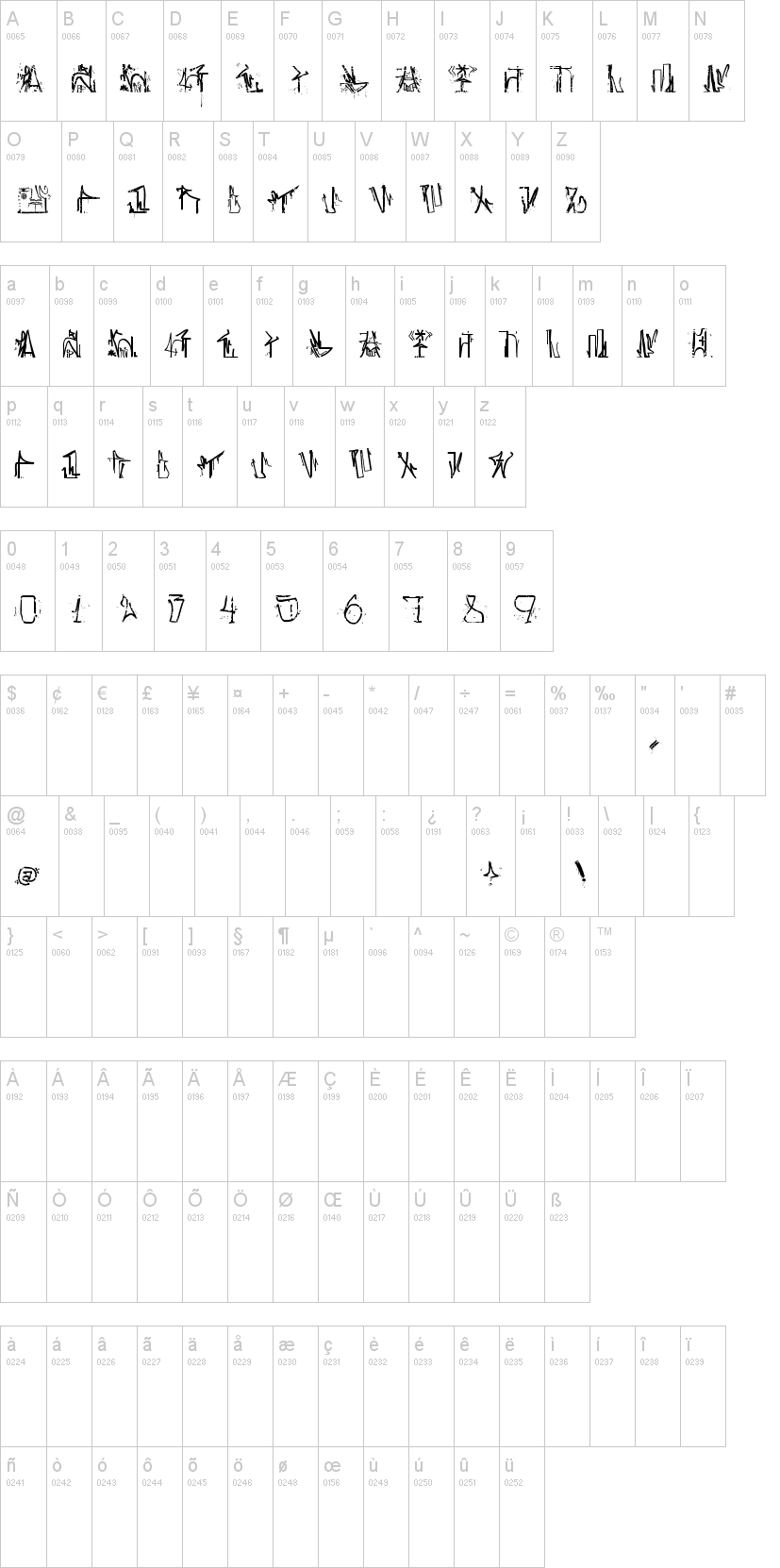
Шрифт Antropofagia
Antropofagia graffiti is a font that is a Brazilian graffiti, this is a style of many letters that I'm working, ways that Acadia street writers do and create is very impressive each group has a name and a different letter and label. how much more recognized in the street